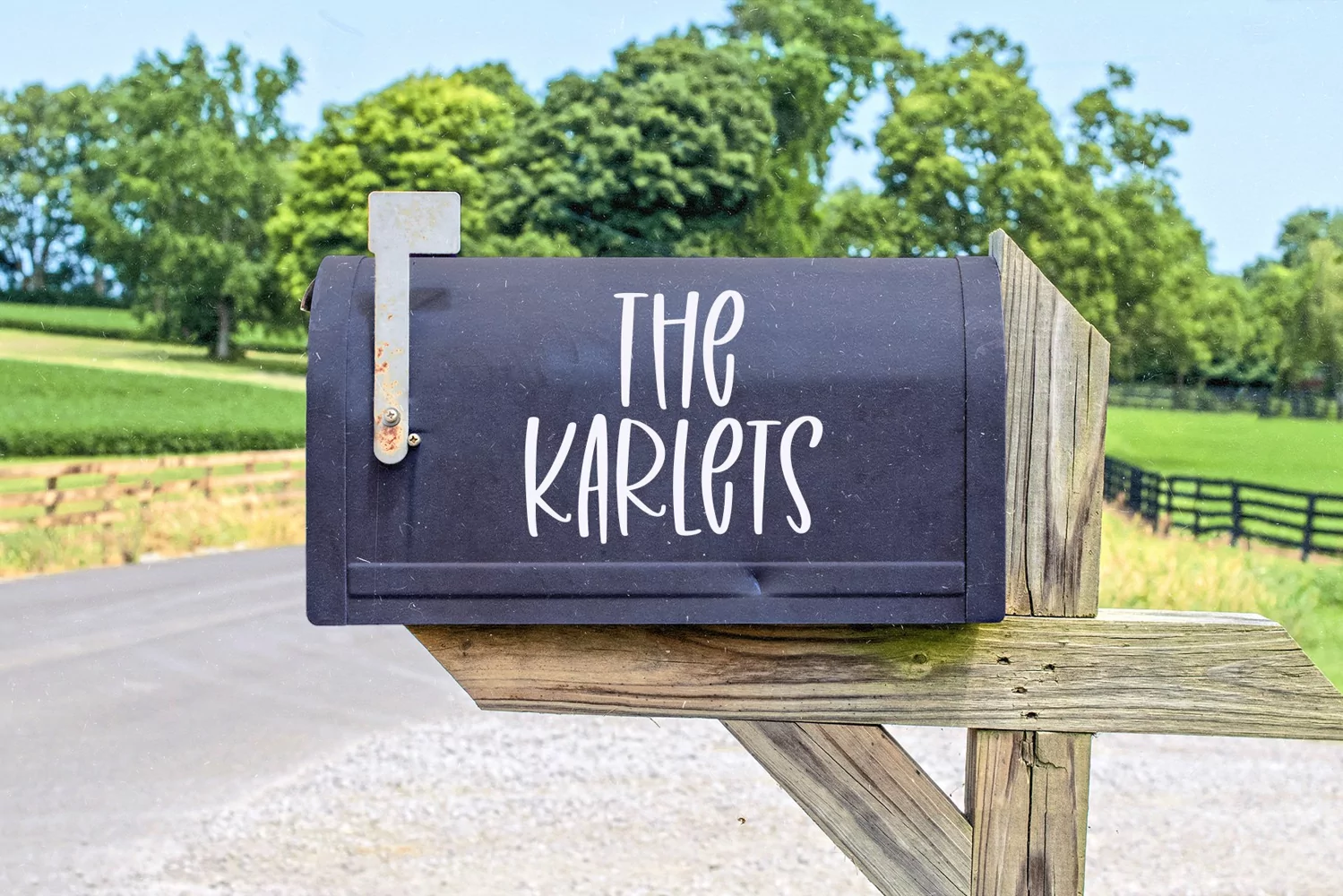
October Bonfires is a fun and quirky handwritten font!
This font is perfect for all of your craft projects, svg designs, shirts, stickers, signs and more!